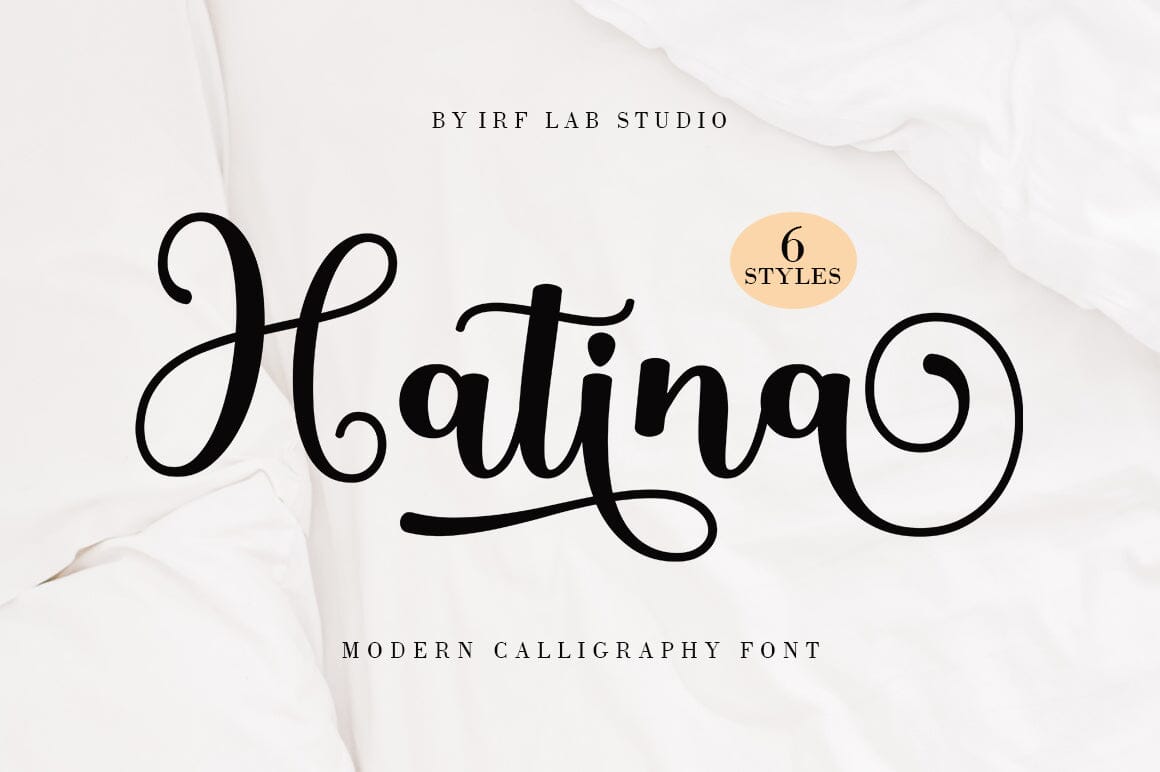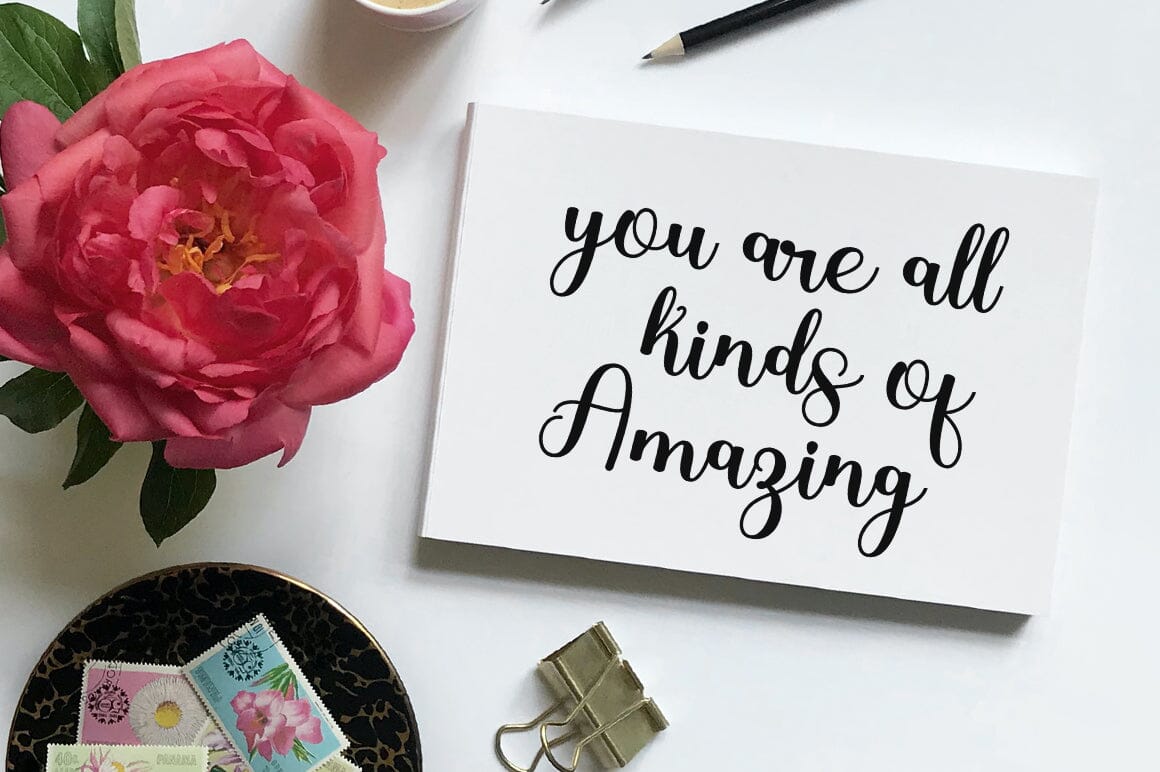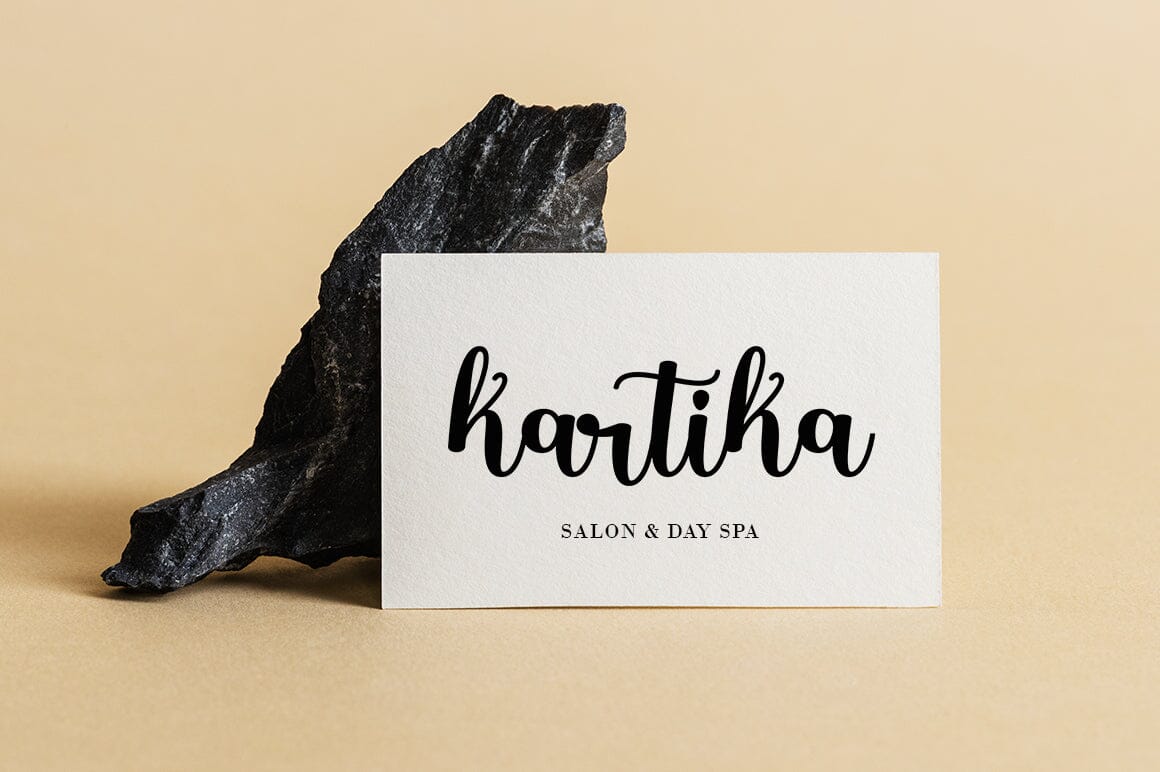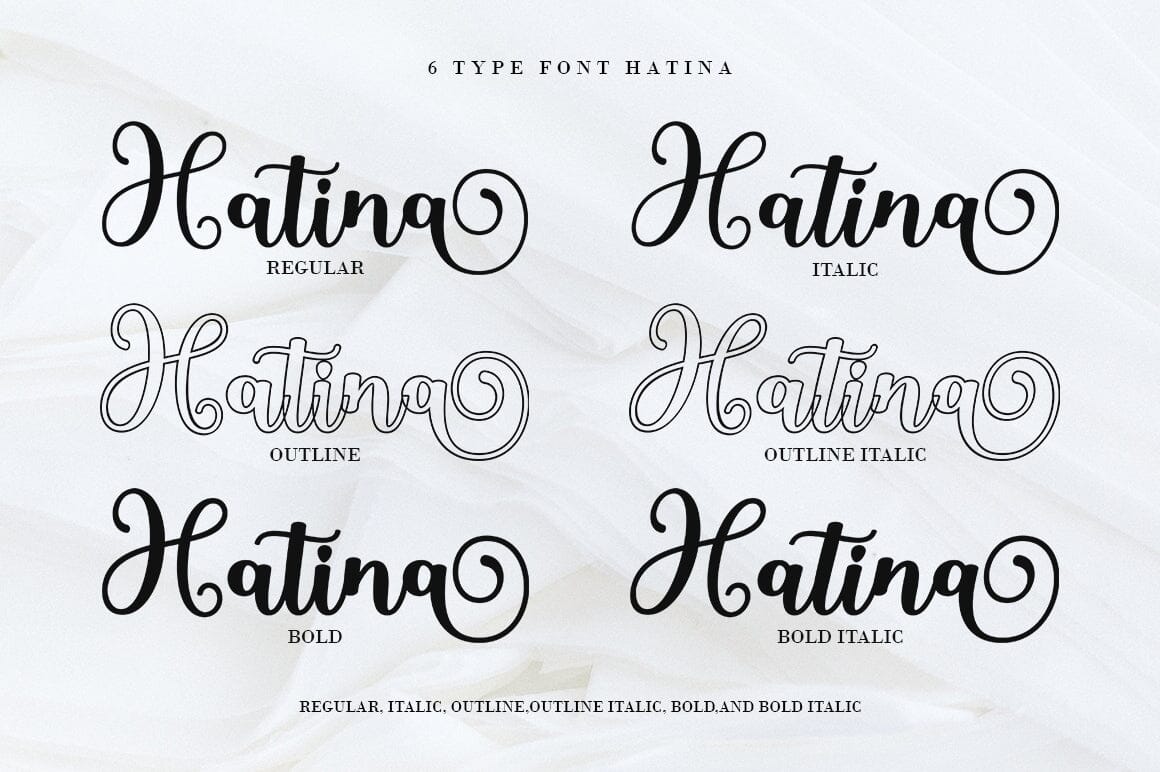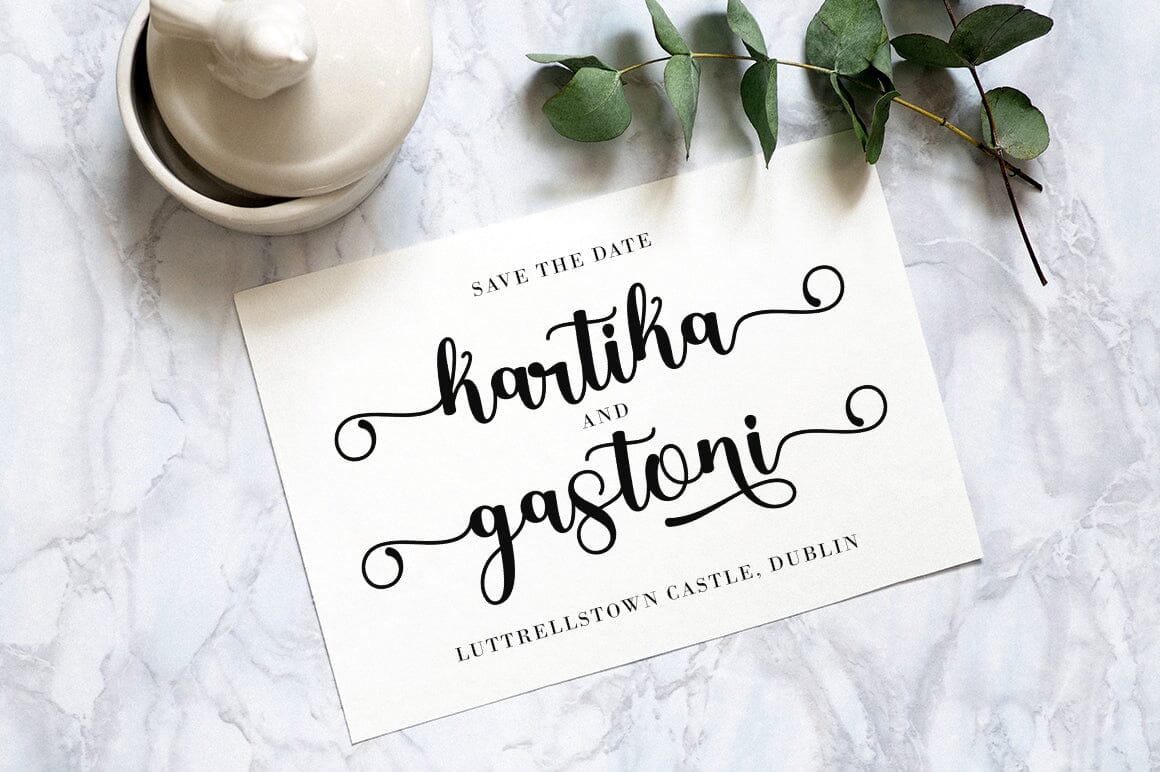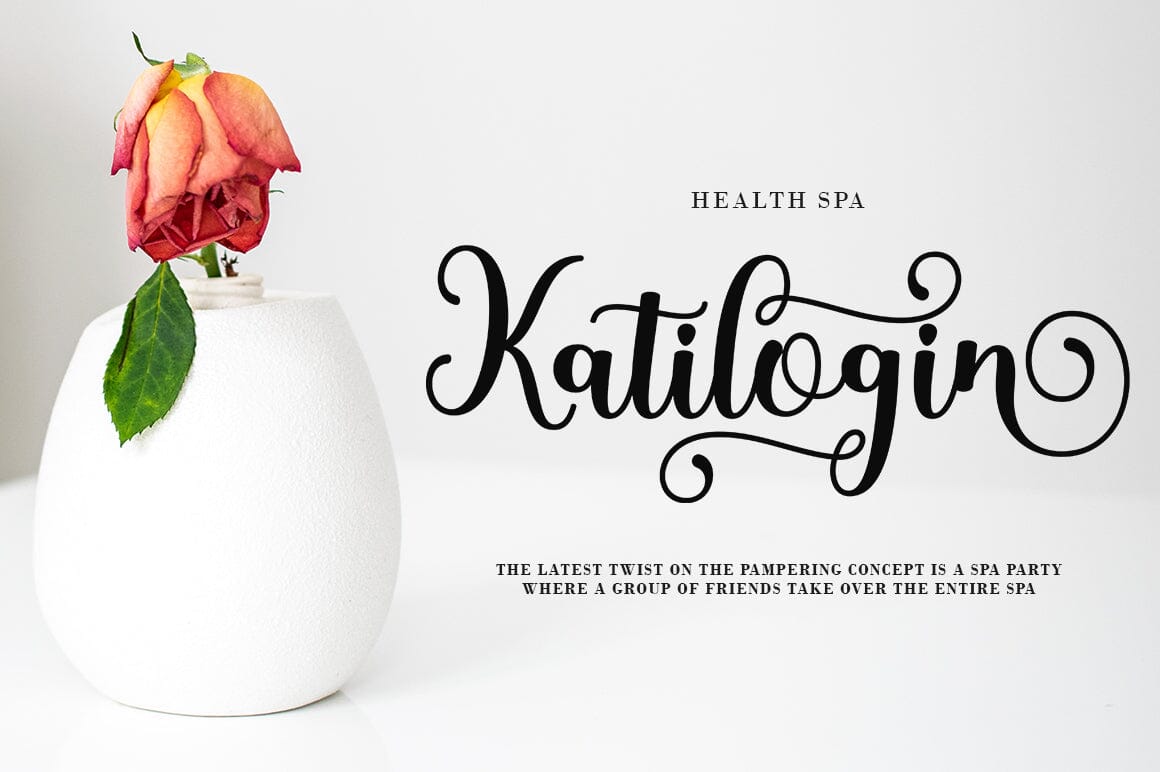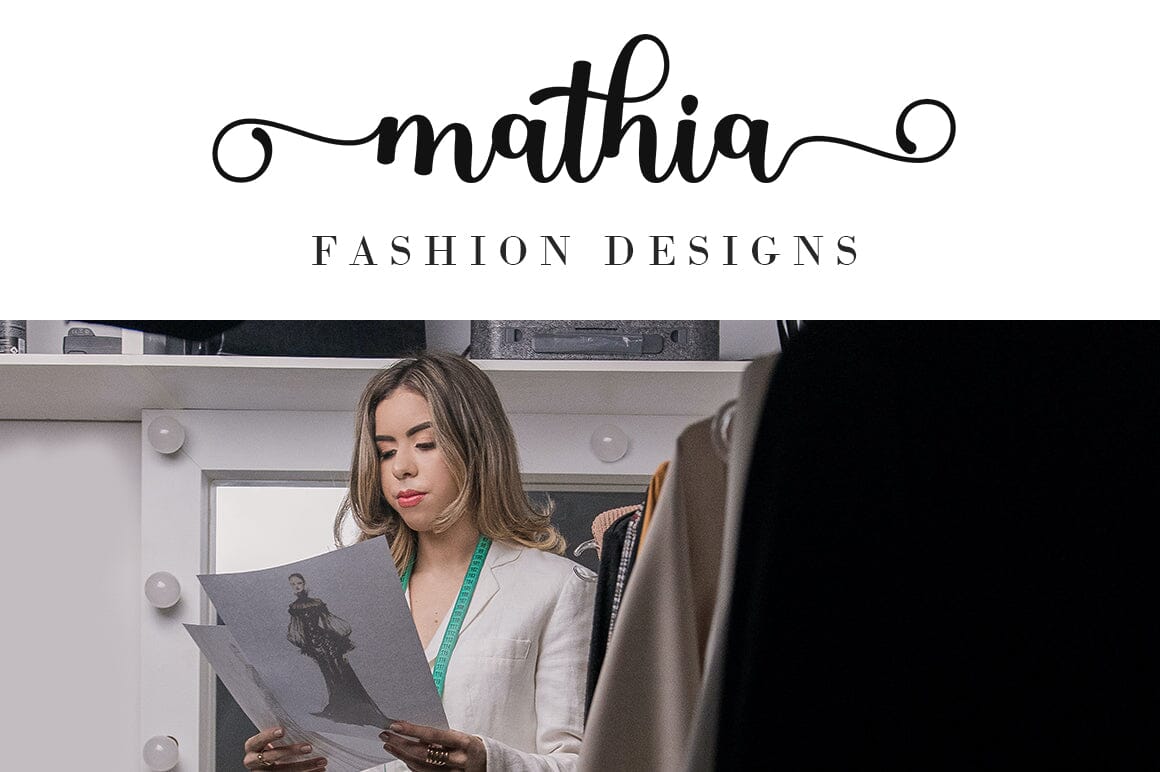
Hatina – Modern Calligraphy Font
About Hatina – Modern Calligraphy Font
Hatina is a beautiful Calligraphy font with a touch of love. Hatina is perfect for branding projects, home appliance design, product packaging, use in business cards, invitation cards, etc. Files include: – Hatina Otf.Ttf – Hatina Italic Otf.Ttf – Hatina Bold Otf.Ttf – Hatina Outline Otf.Ttf – Hatina Bold Italic Otf.Ttf – Hatina Outline Italic Otf.Ttf Thanks for checking! I really hope you enjoy it.